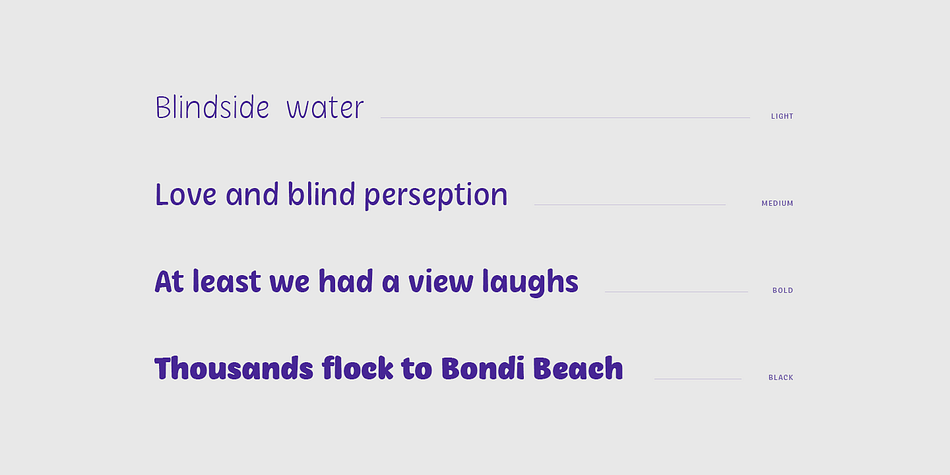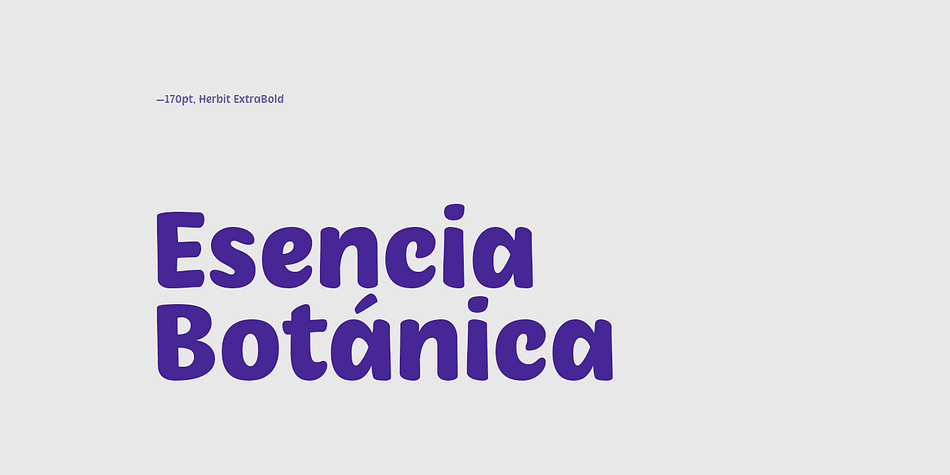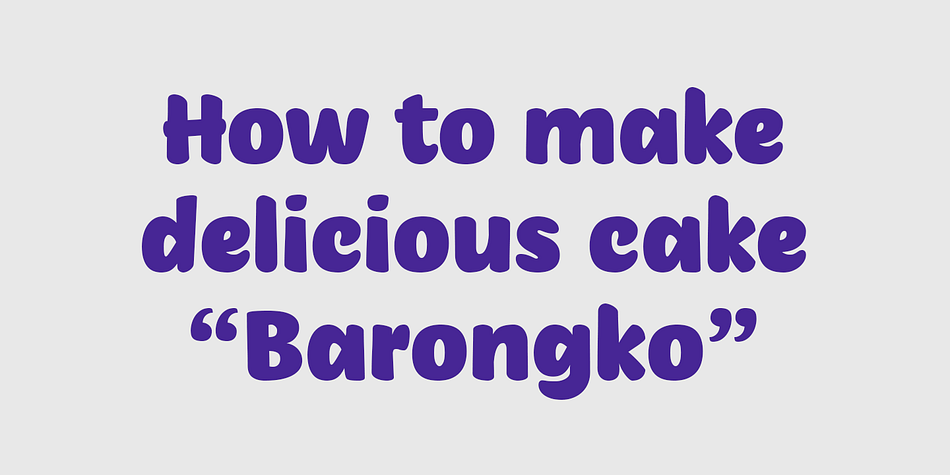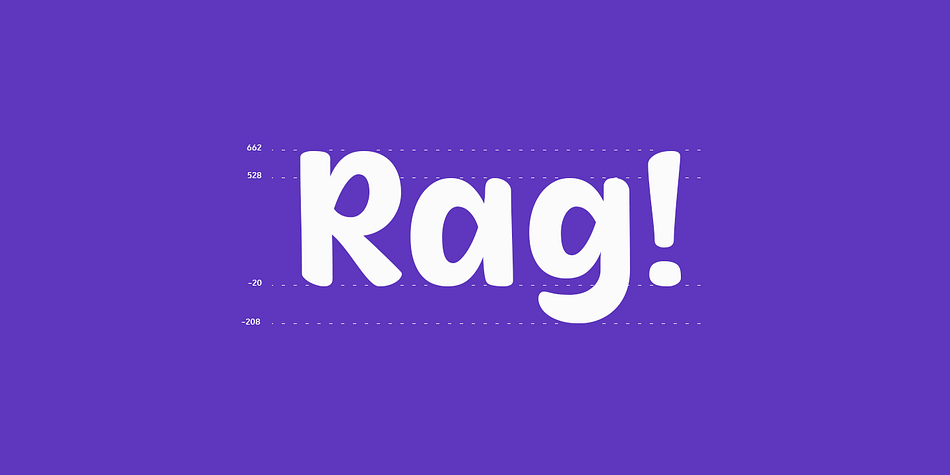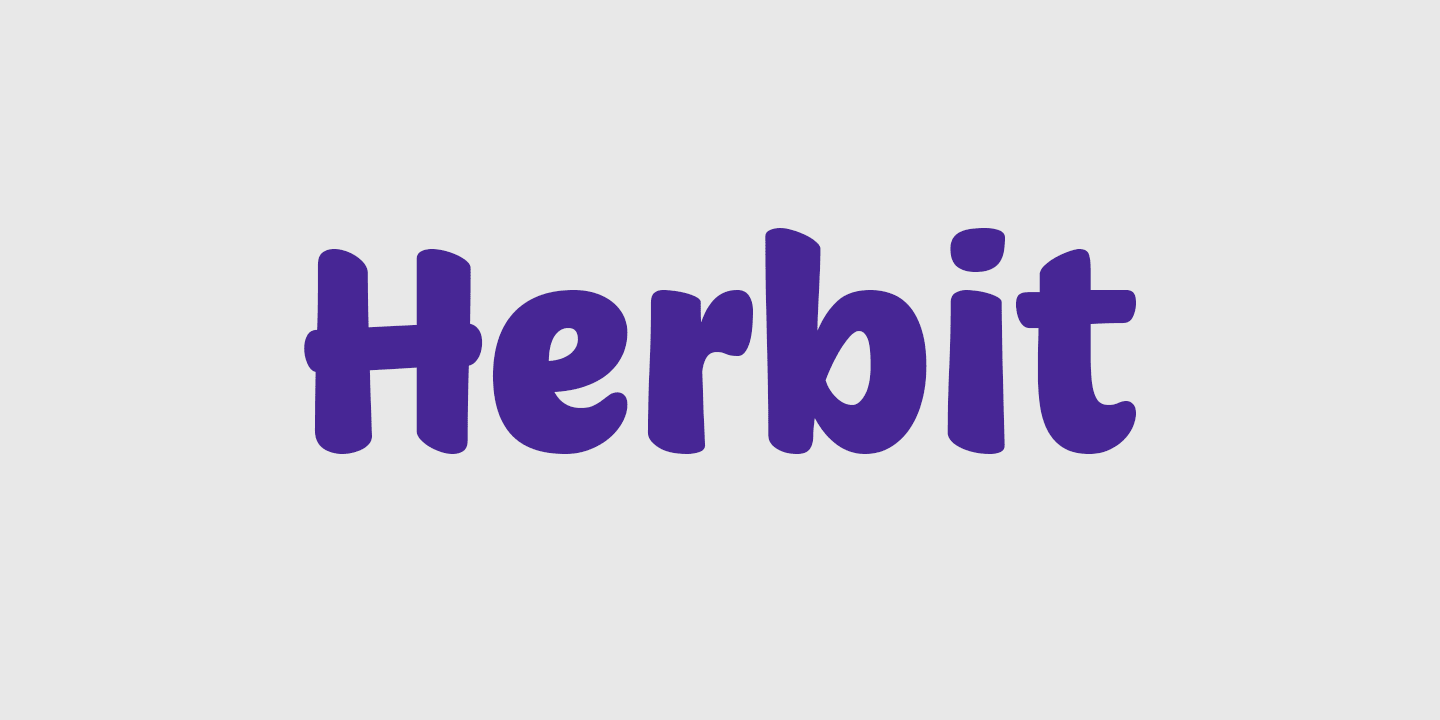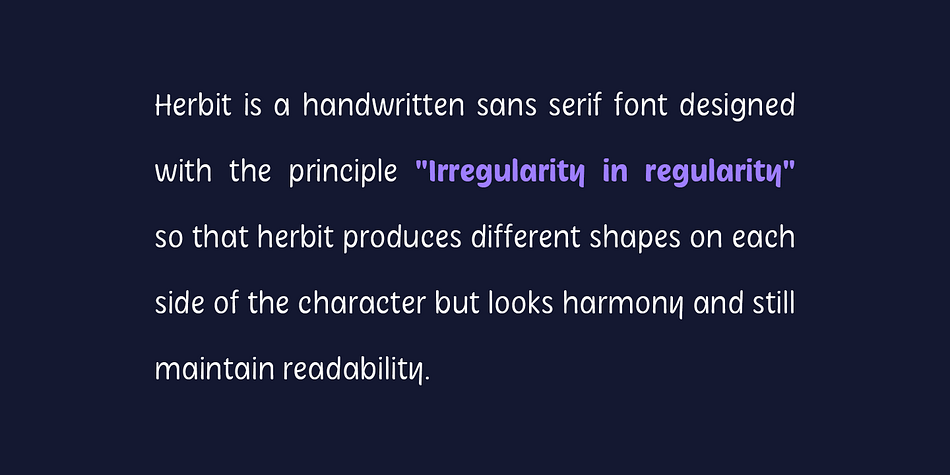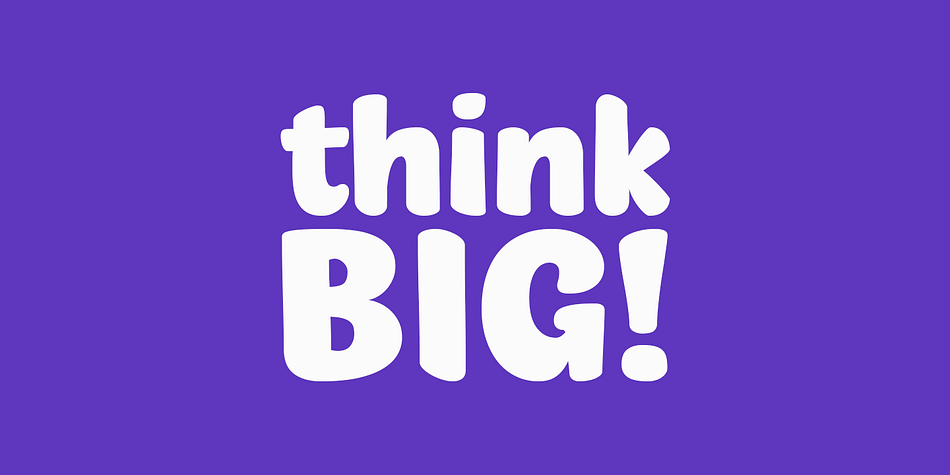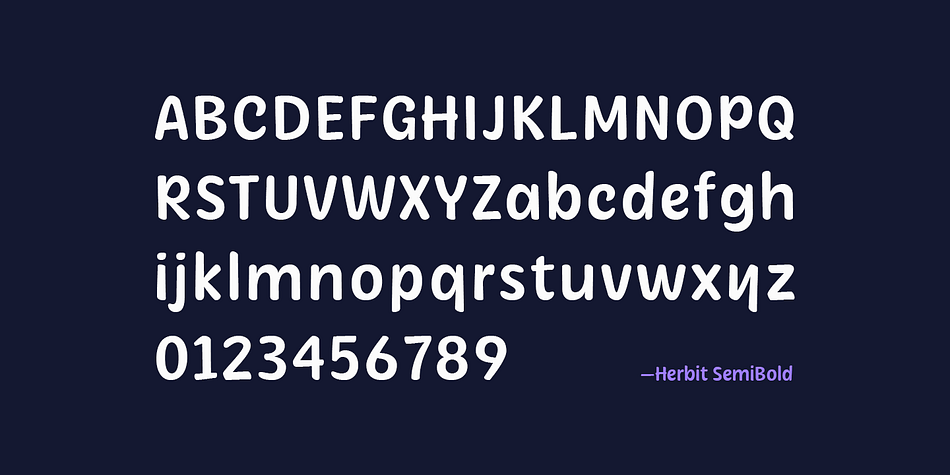
Designed by Anugrah Pasau, Herbit is a hand drawn and sans serif font family. This typeface has seven styles and was published by Lafontype.
Herbit is a handwritten sans serif font designed with the principle “Irregularity in regularity” so that herbit produces different shapes on each side of the character but looks in harmony and still maintain readability. The family contains 7 weights from Light to black with multilingual support and is ideally suited for branding, logo, advertising and packaging needs, editorial and publishing, as well as web and screen design.